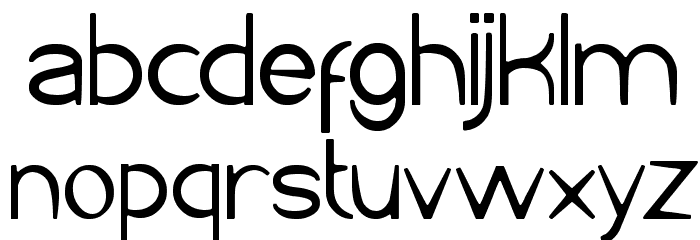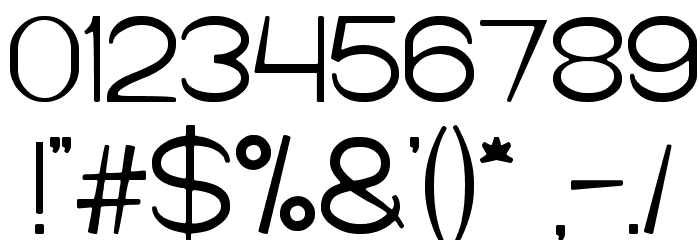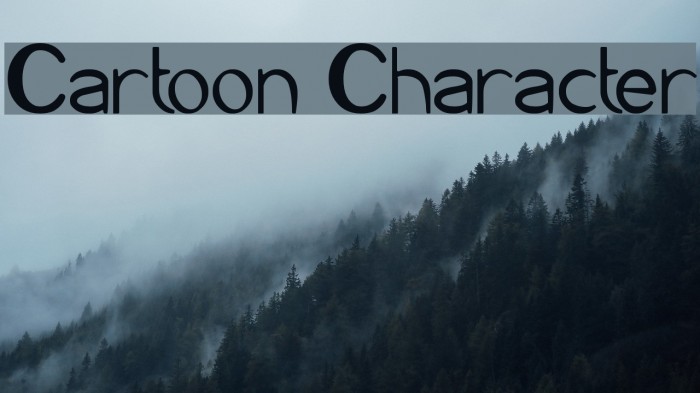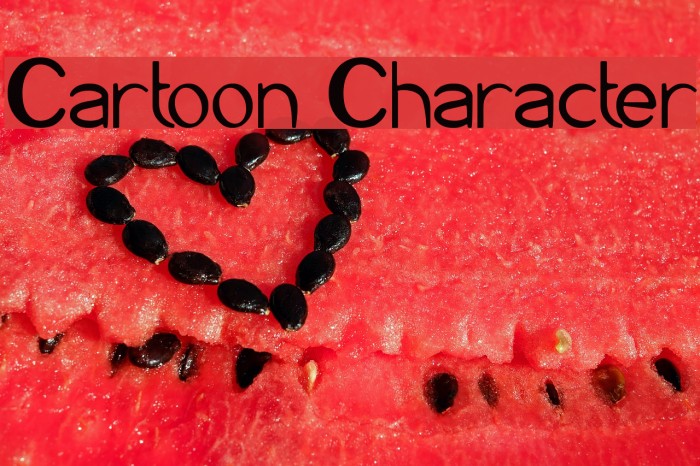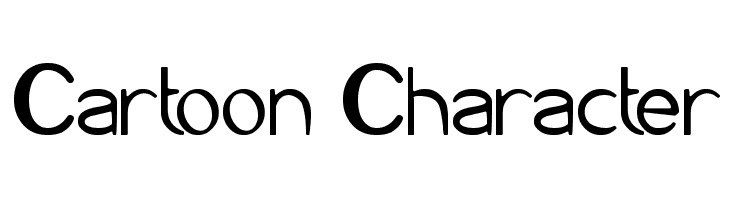
Cartoon Character Font
This playful and rounded font features a smooth, flowing design that evokes a sense of fun and creativity. The characters are bold and slightly condensed, with a consistent stroke width that provides a clean and modern appearance. The uppercase letters are well-proportioned, while the lowercase letters have a friendly and approachable style, making it suitable for a variety of informal applications. The numerals are clear and easy to read, maintaining the same playful aesthetic as the letters. Special characters are included, adding versatility to the font's usage. Overall, this font is ideal for projects that require a touch of whimsy and lightheartedness.
A playful, rounded font with a smooth, modern design.
- Proposed Projects: Ideal for children's books, cartoons, playful branding, and creative posters.
- Use Case: Headlines, Logos, Informal Text